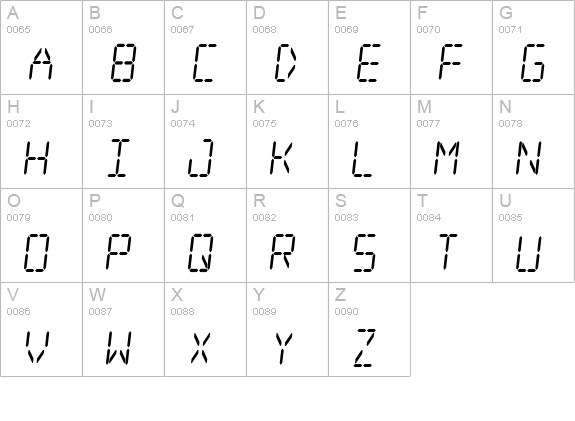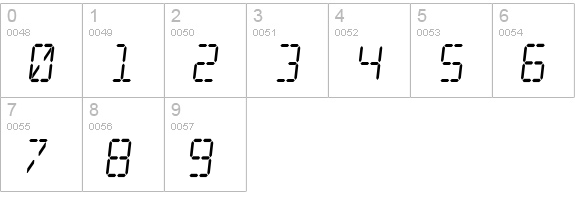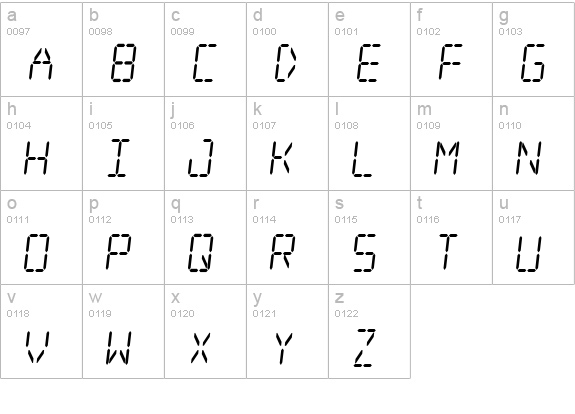
Digital dream Skew Narrow is a distinctive, condensed-width variant in the Digital typeface family \xE2\x80\x94 well suited to design and typography projects.
Introducing Digital Dream Skew Narrow font, a modern and stylish typeface designed to make your projects stand out. This unique font features a sleek and edgy design with a slight skew for added visual interest. Perfect for creating eye-catching headlines, logos, posters, and more, Digital Dream Skew Narrow is sure to make a statement. The best part? This amazing font is completely free for personal and commercial use! You can download Digital Dream Skew Narrow font for free at FontsMarket.com and start using it in your designs today. Don't miss out on this fantastic opportunity to add a touch of sophistication and creativity to your projects with Digital Dream Skew Narrow font. Download it now and unleash your creativity!